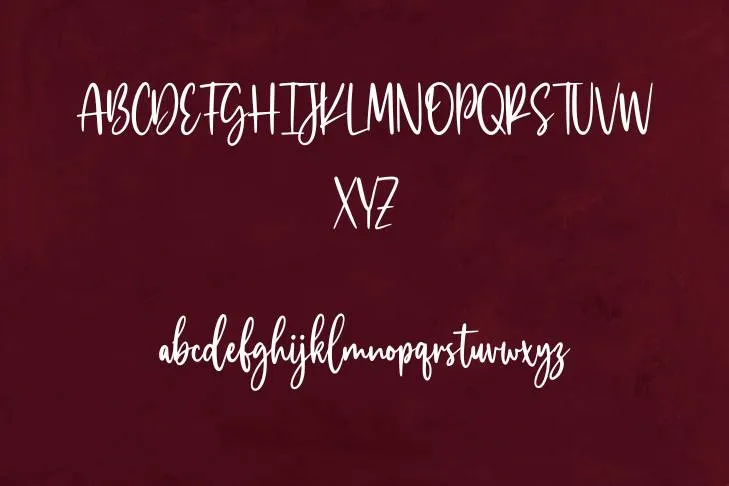
Let me introduce an exquisite typeface that is presented by Type Asset. It is an eloquent Script typeface with contemporary edges, and it is ideal for a variety of tasks. This typeface has a distinctive cursive design that incorporates traditional and futuristic elements, making it an appealing option for those who want to establish an authoritative visual statement.
Along with a comprehensive collection of punctuation and ligatures, the typeface is offered in both upper and lowercase alphabets. In addition to this, it has multilingual compatibility for numerous languages and stylistic alternates that let you personalize the font to your specific requirements.
Where Can I Use Billie Kimber Font?
The subtle feature of this fabulous typeface is that it can be utilized for a wide range of projects because of its modern elements. Its projects range from magazine layouts, social media postings to product packaging and branding.
It’s critical to consider the look and feel you want to attain when using Billie Kimber font in your design and patterns. The typeface adapts itself well to contemporary and trendy designs and can add a touch of elegance to any project.
It’s crisp edges and lovely curves make it an excellent option for headlines, logos, invites, and other design elements where legibility and aesthetics are fundamental.
Billie Kimber Font Alternatives
Billie Kimber Font Pairings and Combinations
This is an attractive, yet distinctive typeface and it makes a design coherent when combined with other fonts. Many Sans-Serif fonts can be paired with this exceptional typeface to produce a modern and curvaceous design. For instance, Helvetica, Arial, and Montserrat fonts enhance the elegance of this typeface and help you to generate more conventional designs.
Moreover, several Script fonts such as Pacifico, Brush Script, or Alex Brush can add a more personal touch to your designs when used with this marvelous typeface.
Billie Kimber Font FAQs!
Where can I use Billie Kimber Font?
The subtle feature of this fabulous typeface is that it can be utilized for a wide range of projects because of its modern elements.
Who designed the Billie Kimber Font?
Billie Kimber typeface is an exquisite typeface that is presented by Type Asset. It is an eloquent Script typeface with contemporary edges,